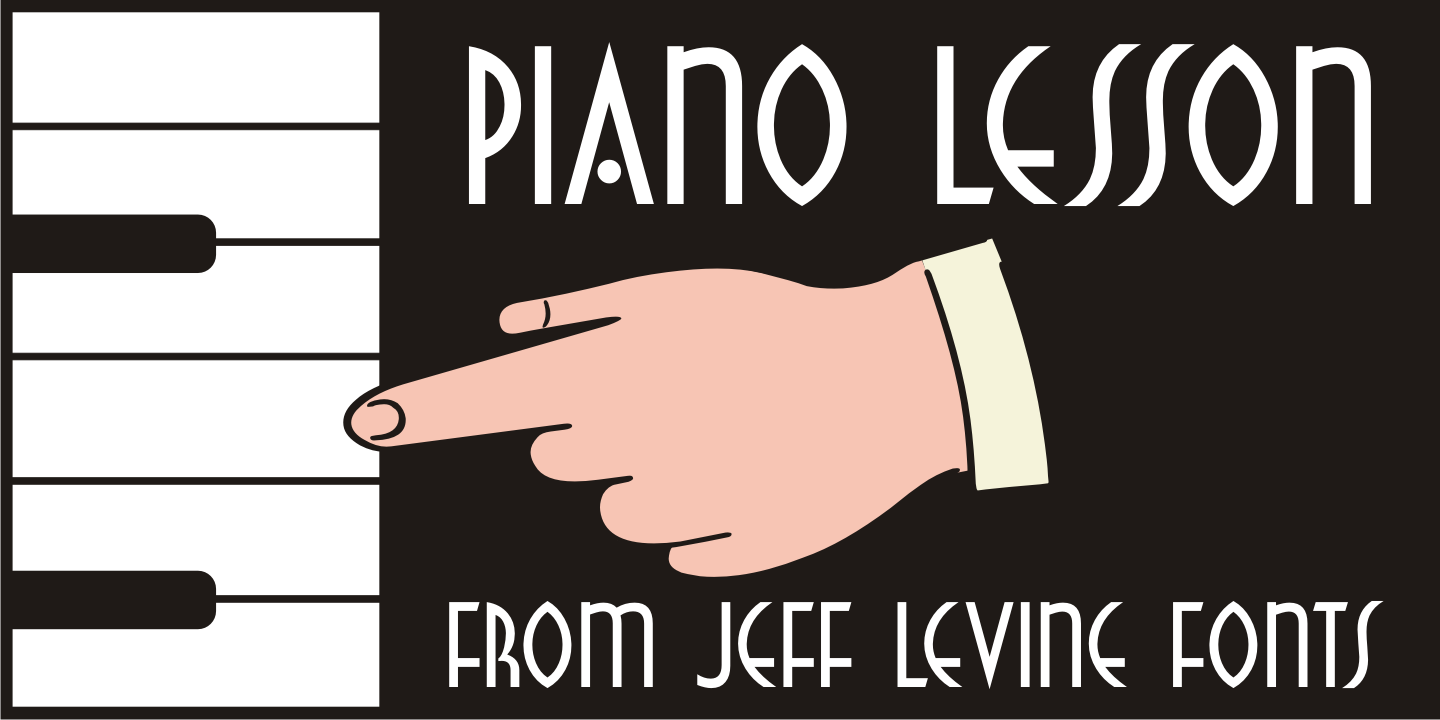
Piano Lesson JNL Font is ideal for music education materials, piano teacher branding, conservatory communications, classical music school signage, sheet music publications, piano recital programs, music theory textbooks, keyboard instruction guides, piano studio marketing, and musical learning resources. This harmonious typeface excels in applications where musical education and piano instruction need to be communicated with melodic elegance and educational warmth that embodies the joy of learning piano and the timeless beauty of keyboard artistry.
What makes Piano Lesson JNL Font exciting is its remarkable ability to capture the essence of piano instruction through its carefully balanced letterforms that seem to echo the rhythmic patterns and melodic intervals that make piano learning such a rewarding experience. The font embodies the spirit of musical education with its structured construction and harmonious proportions that suggest the disciplined practice required for piano mastery and the patient guidance of dedicated teachers. Its thoughtfully crafted character details and educational personality create an atmosphere of encouraging support that resonates with piano students, teachers, and music lovers who understand the transformative power of musical education.
The Piano Lesson JNL Font family typically includes Regular and Bold weights, each maintaining the signature musical characteristics and educational appeal. Some versions offer Italic variants that enhance the flowing musical quality, decorative elements inspired by piano keys and musical notation, and alternative character sets with musical symbols. The family may also include condensed styles for efficient sheet music layouts and display cuts optimized for recital programs and music education materials requiring clear, readable presentation.
Whether you're creating music education brands, piano instruction materials, or classical music communications, Piano Lesson JNL Font Free Download delivers the perfect musical harmony your educational projects deserve. Its piano-inspired character and pedagogical styling make it an invaluable choice for music teachers, conservatories, and educational institutions working in piano instruction, music education, and classical music sectors where authentic musical knowledge and encouraging educational atmosphere are essential for inspiring students to discover the lifelong joy of piano playing.